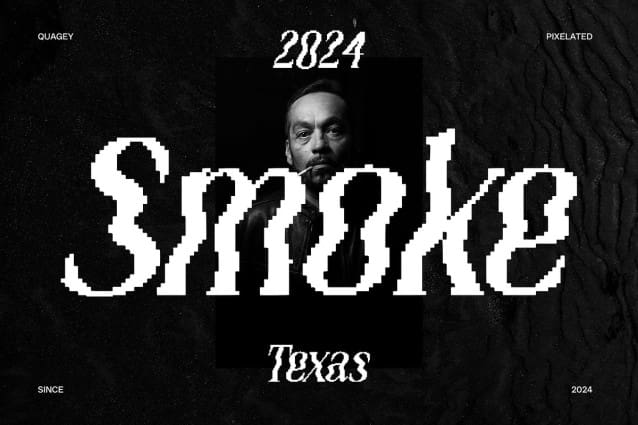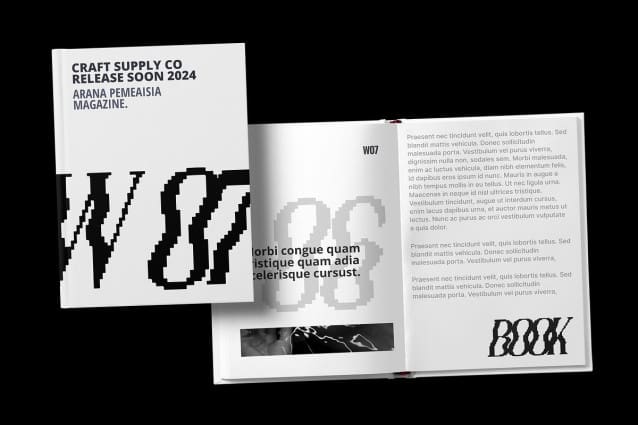
Quagey Pixel Font
Quagey Pixel Font is a pixelated serif font with a psychedelic and funky style, creating a dynamic, bold, and captivating look. Its unique design makes it ideal for projects that aim to stand out and be full of creativity.
With its versatile design, Quagey Pixel Font is suitable for a variety of uses, including posters, album covers, and branding. Its psychedelic flair adds an artistic and daring touch, ensuring your designs are memorable and eye-catching.
Quagey Pixel Font prioritizes visual boldness, ensuring that your designs make a strong impression. Whether used in print or digital media, this font adds a vibrant and energetic element that captivates viewers.
Whether you’re designing a bold poster, an artistic album cover, or a distinctive brand identity, Quagey Pixel Font is the perfect choice for projects that require a unique, daring, and artistic appearance. Its funky and psychedelic style ensures that your work will always look innovative and full of creativity.